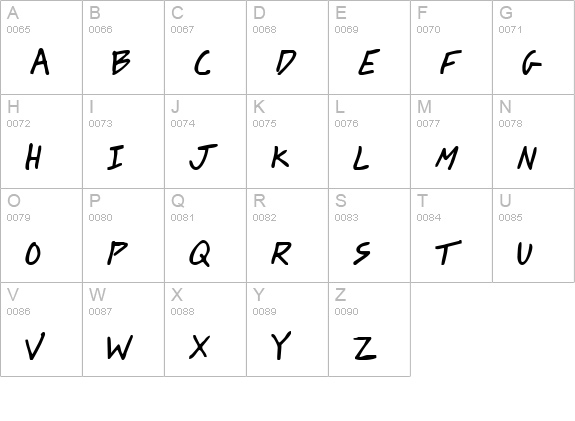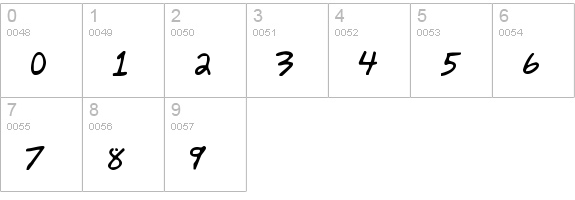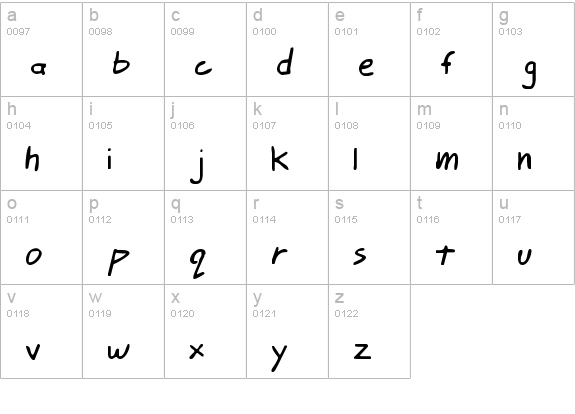
Johnny Mac Scrawl BRK Font Details
Johnny Mac Scrawl BRK is a charming and playful font that exudes a sense of whimsy and creativity. With its hand-drawn appearance and unique character shapes, this font adds a touch of personality to any project. Whether you're designing posters, invitations, or social media graphics, Johnny Mac Scrawl BRK is sure to make your text stand out. The best part? Johnny Mac Scrawl BRK is completely free to download at FontsMarket.com. This means you can add this delightful font to your collection without any cost. Don't miss out on the opportunity to enhance your designs with the fun and quirky style of Johnny Mac Scrawl BRK. Download it today and let your creativity shine!